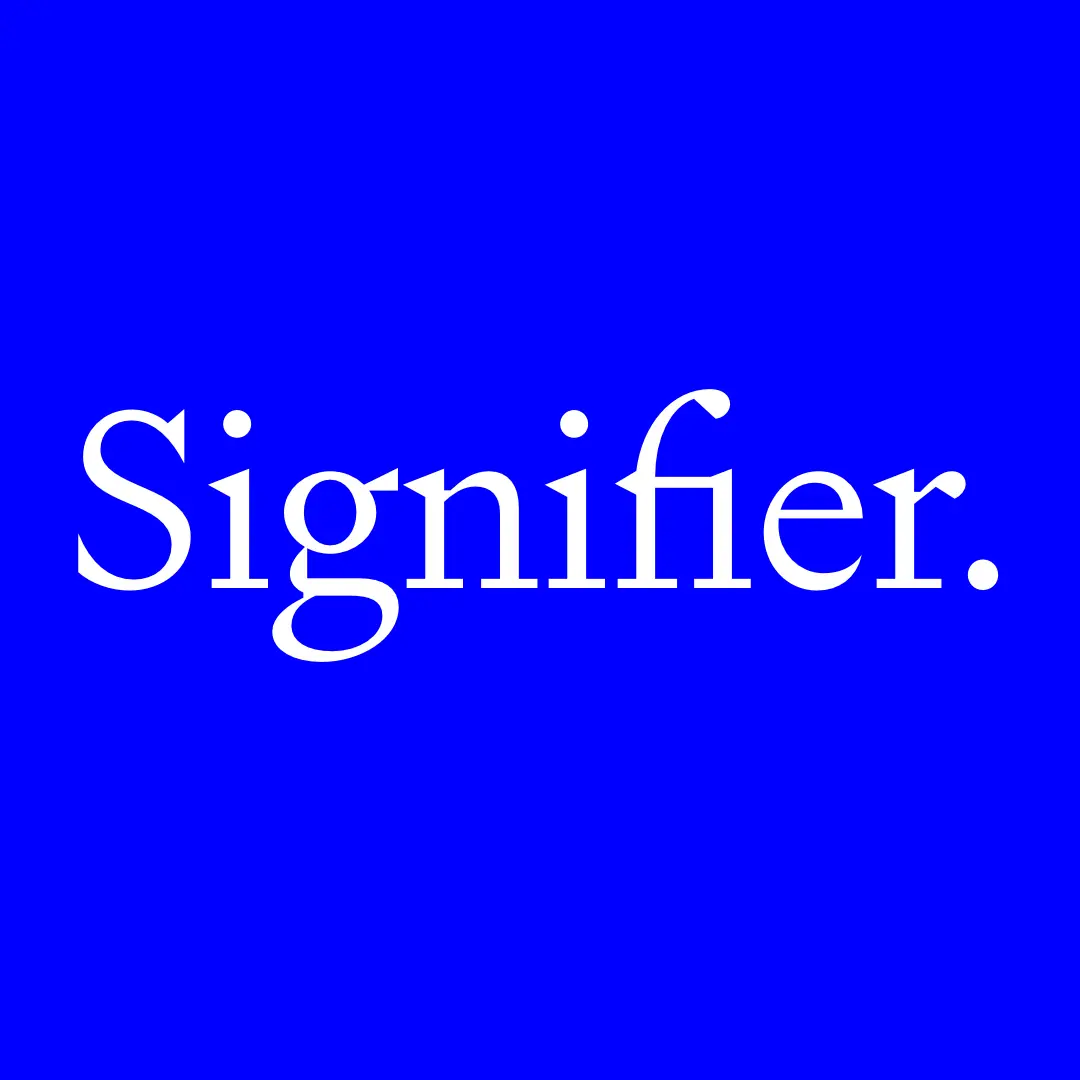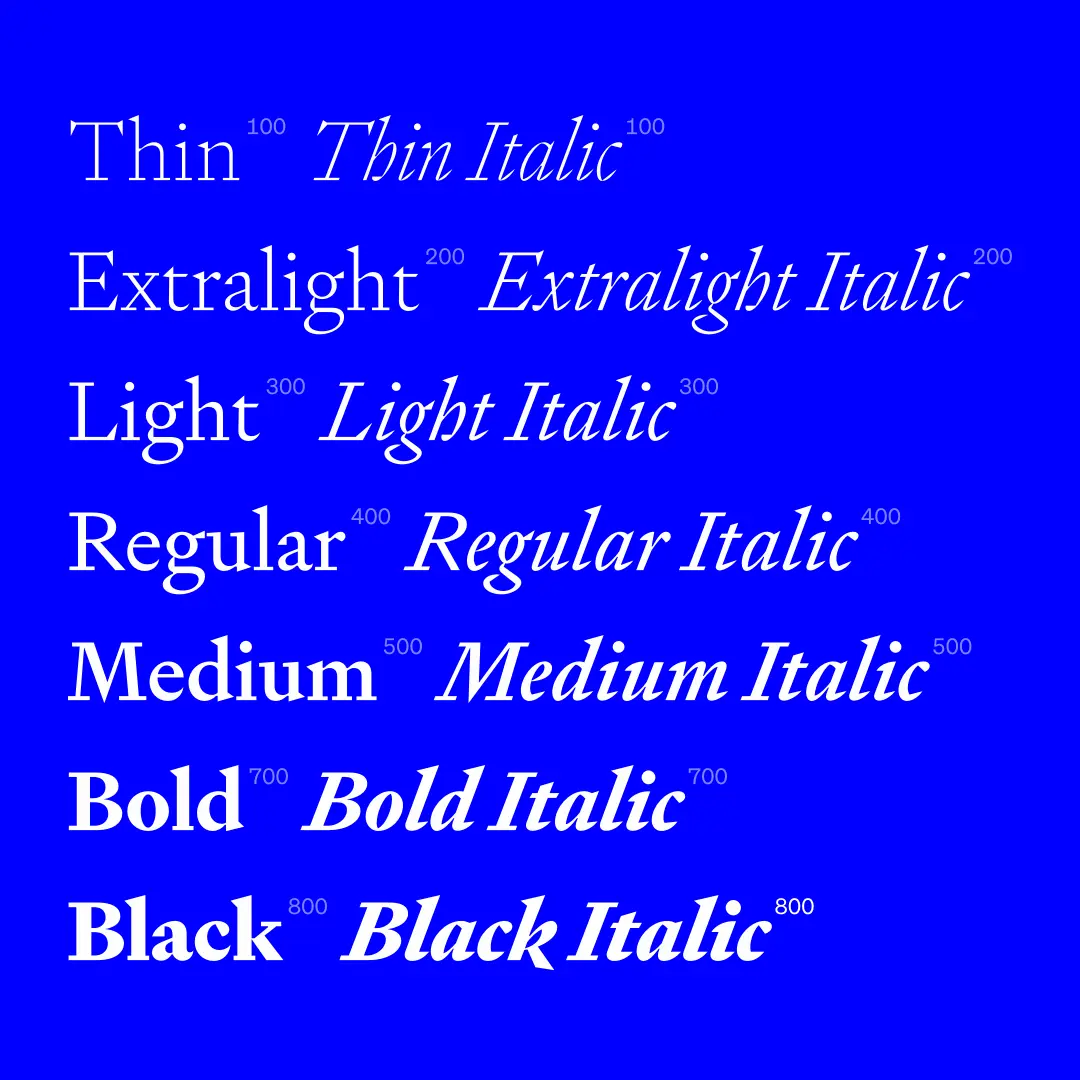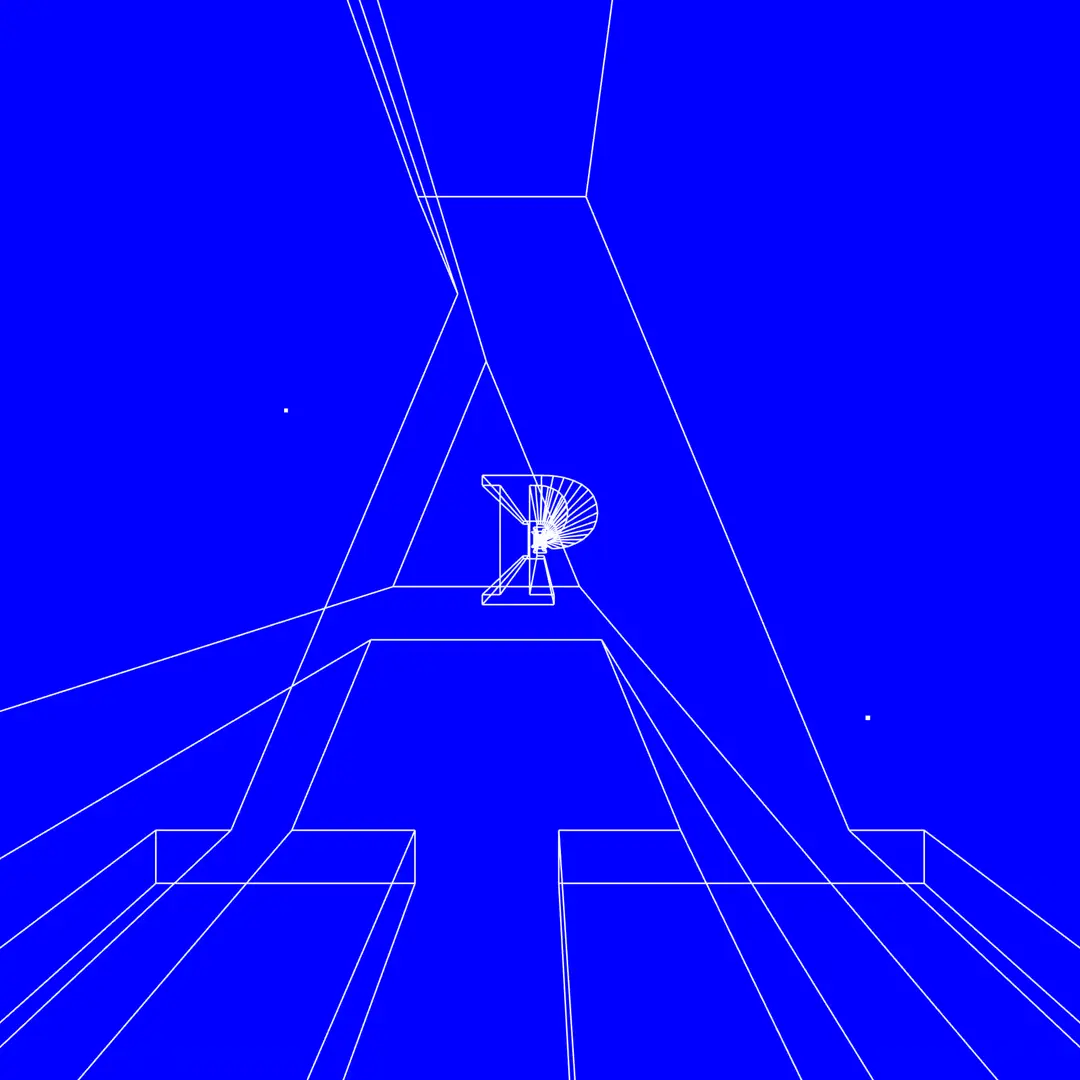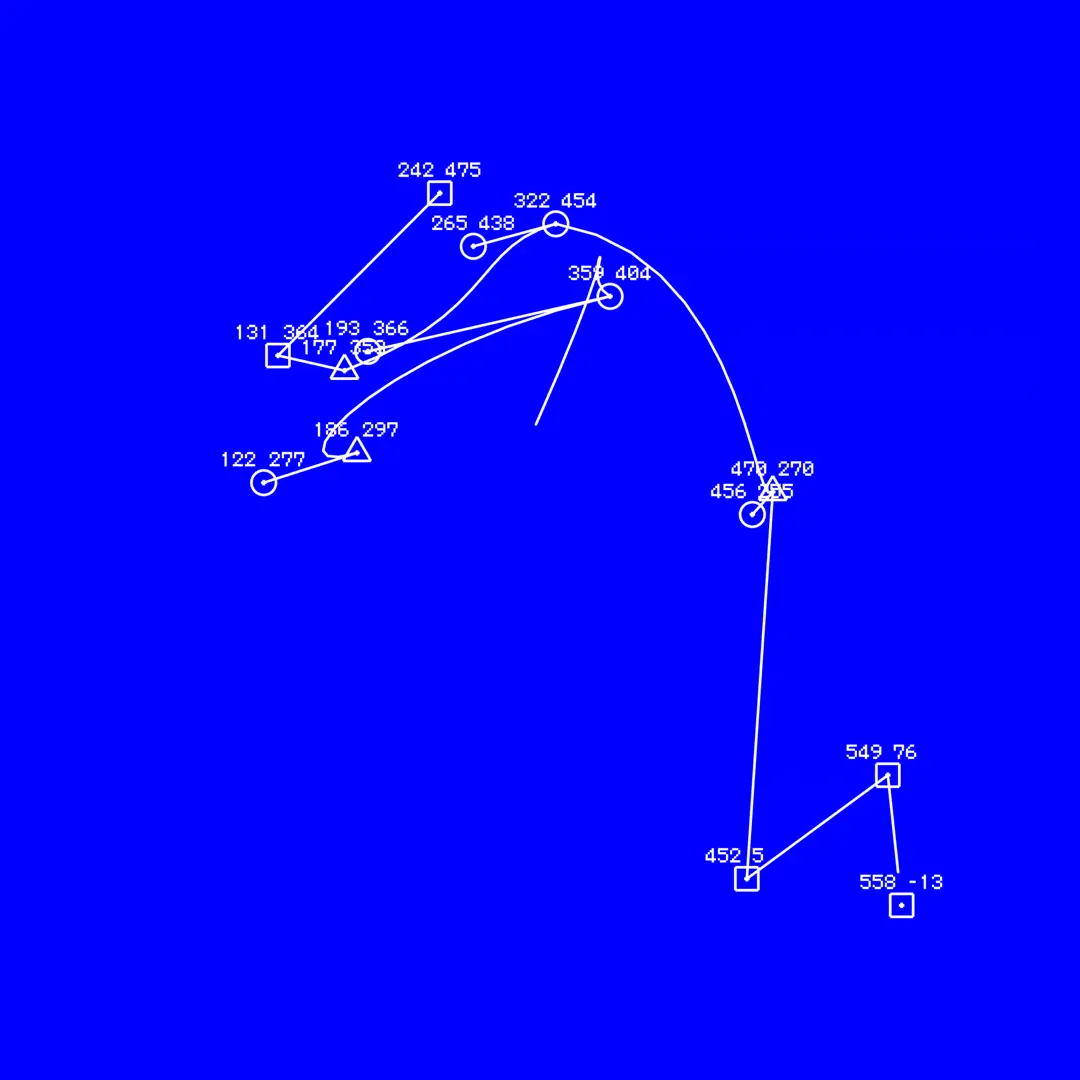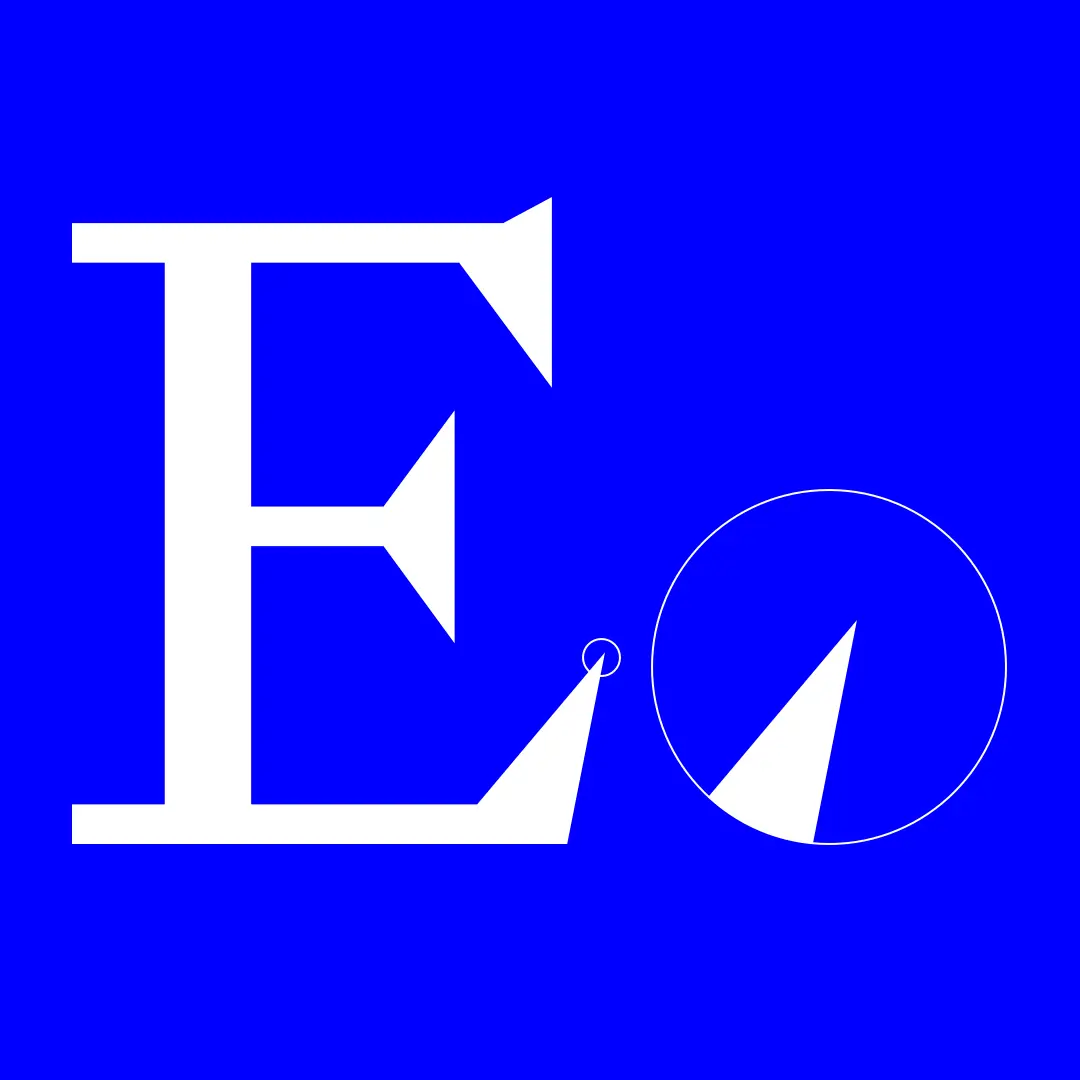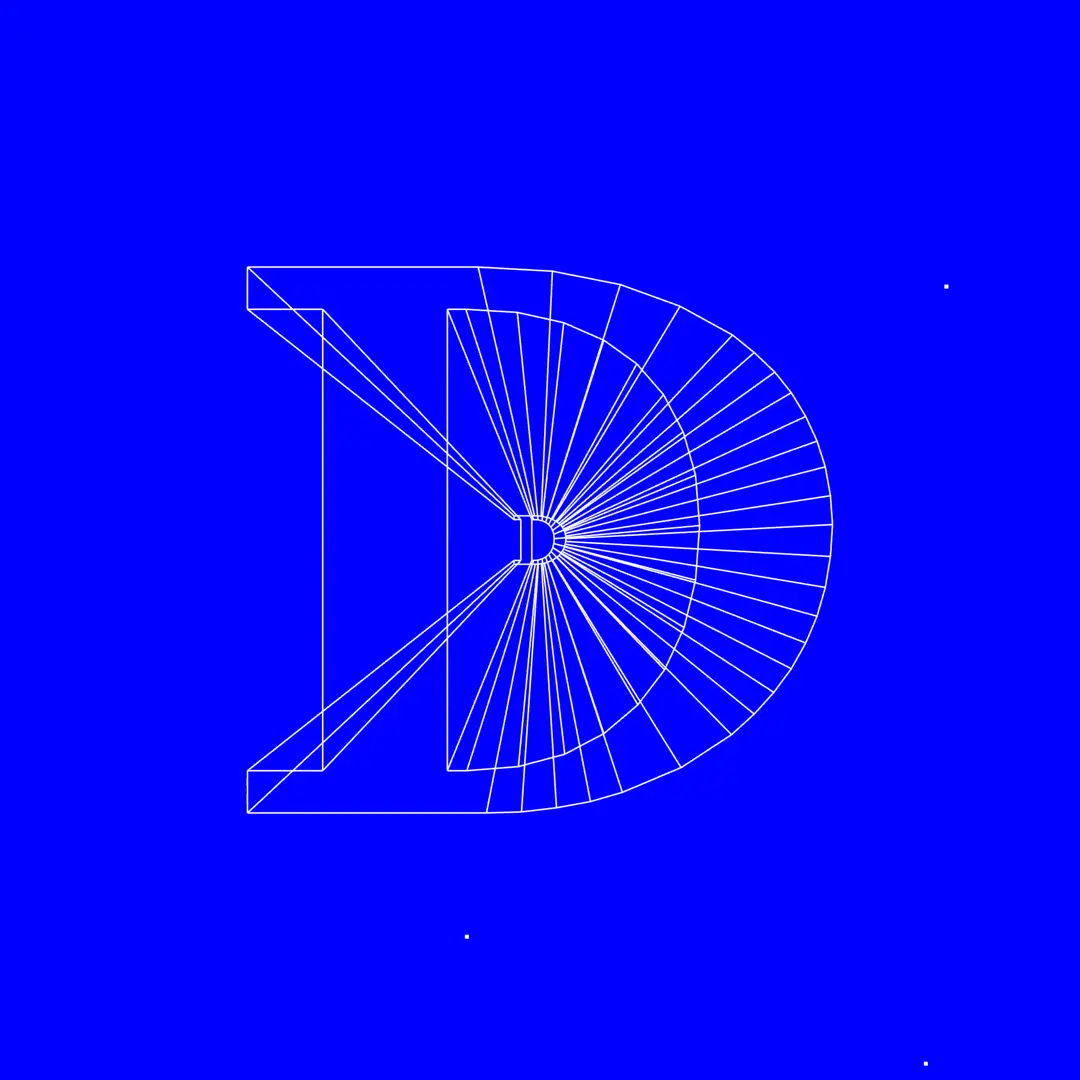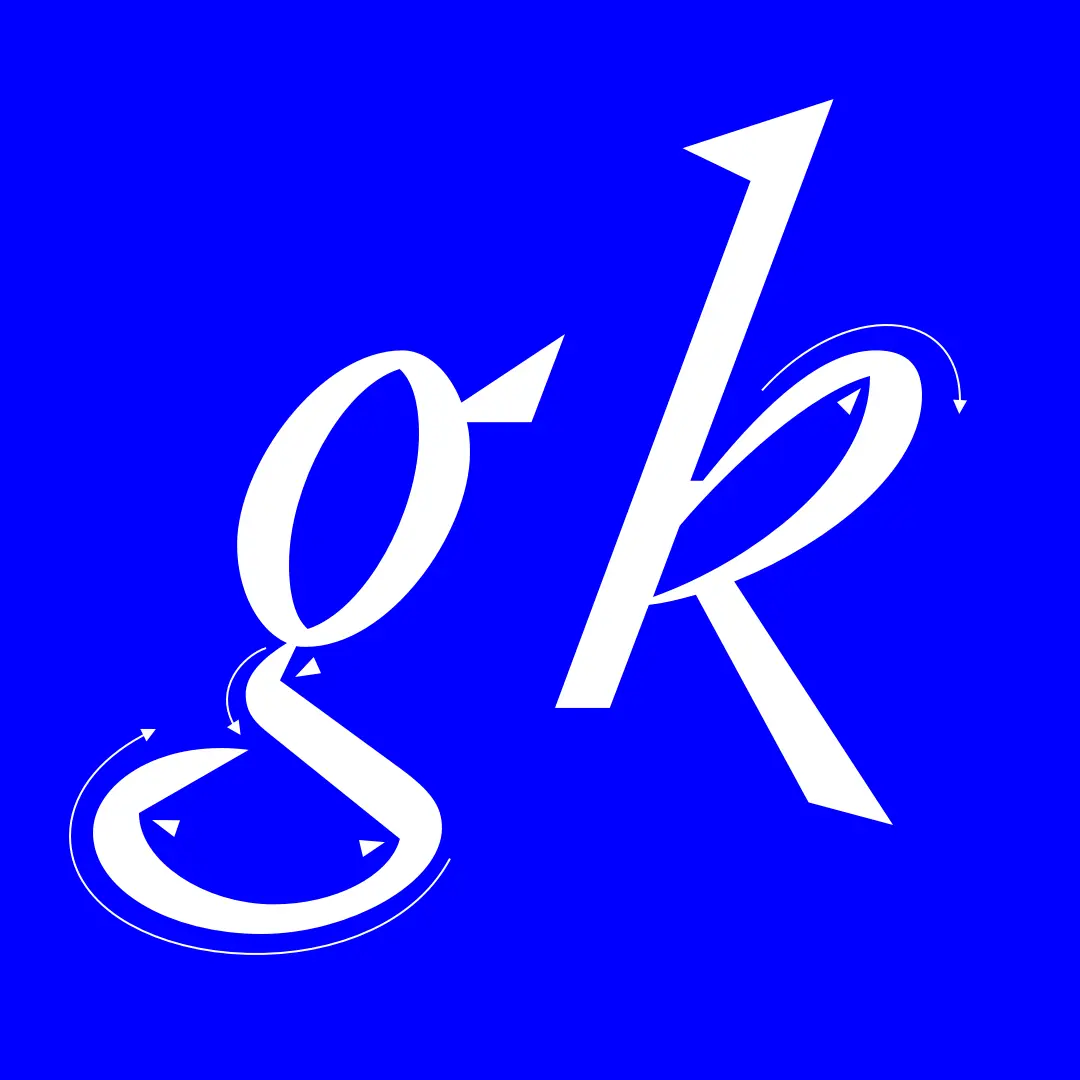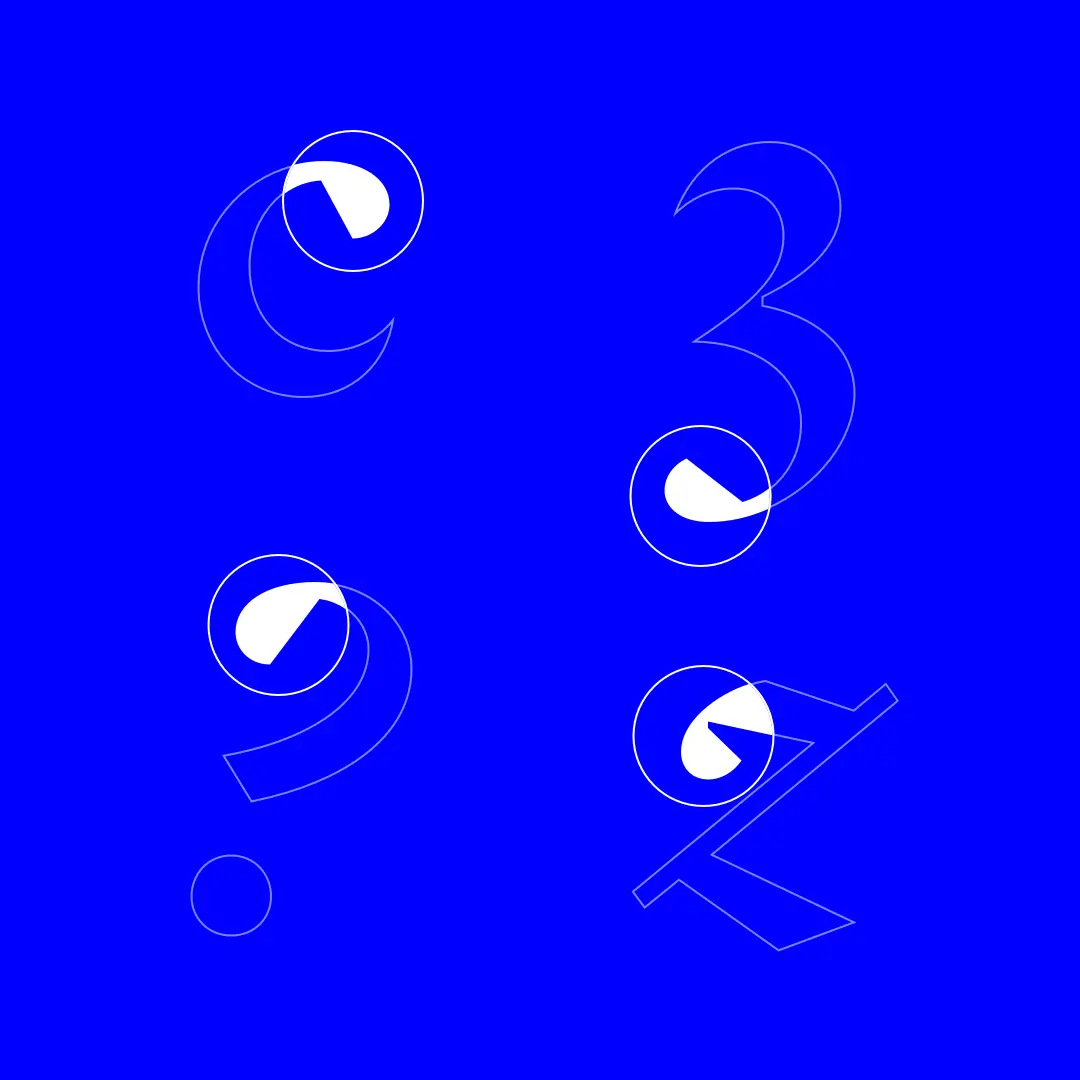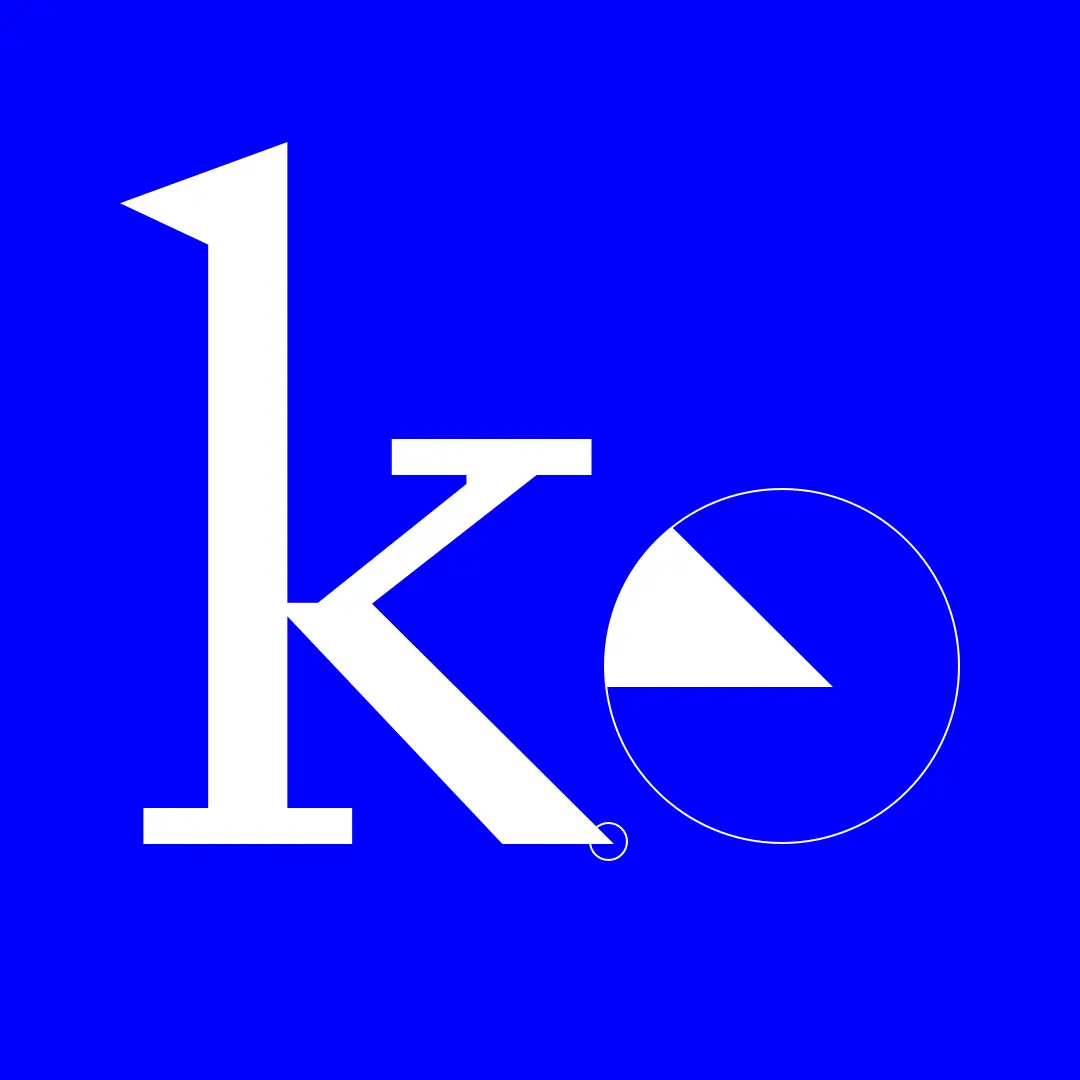
New font Signifier brings a sense of Brutalism to 17th-century type
Signifier is a new font from Klim Type Foundry that combines the essence of 17th-century typefaces with a Brutalist ethos, to startling effect.
Designer Kris Sowersby worked consciously with the computer to recast the lead, antimony, and tin of the 17th century Fell Types into ones and zeros. Signifier emerged from this alchemy with Bézier curves and sharp vectors determined by machine logic.
The creation process proved something of an epiphany, Sowersby reveals. "I finally realised that searching for the essential materiality of digital fonts was misguided," he explains. "Their essential nature, like all things digital, is immaterial. Form is the void and void is the form."
Just as impressive as the font itself is the campaign behind it. Sowersby's perception that 'void is the form' finds resonance in the work of the mid-20-century French artist, Yves Klein. And so the launch campaign uses Signifier to transcribe Klein's musings on Immateriality, The Void, and the metaphysics of absence.
Directed by Kelvin Soh from DDMMYY studio, in collaboration with Klim, the campaign video reimagines Klein's signature colour, International Klein Blue, in the retinal vibrato of pure RGB screen blue, irreverently conflating Klein's infinite void with Microsoft Windows' 'Blue Screen of Death'. The video features sound by Sines and Cymbals and animations by Seskamol.